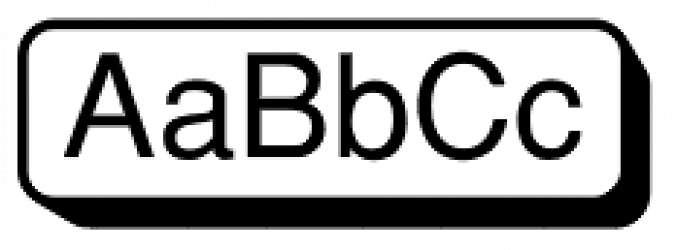
PIXymbols Boxkey downloadDesigner: Roger Vershen
Publisher: Page Studio Graphics
Four segmented "make-your-own-key" fonts featuring international computer keyboard keys with a shadow-box effect, including accented characters for most European languages. All symbols also in single key-shapes. Style matches the Shadowkey font.